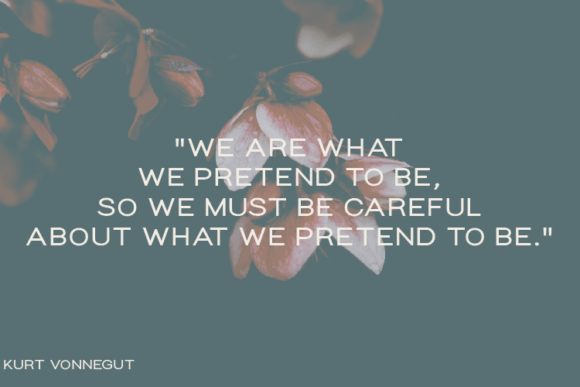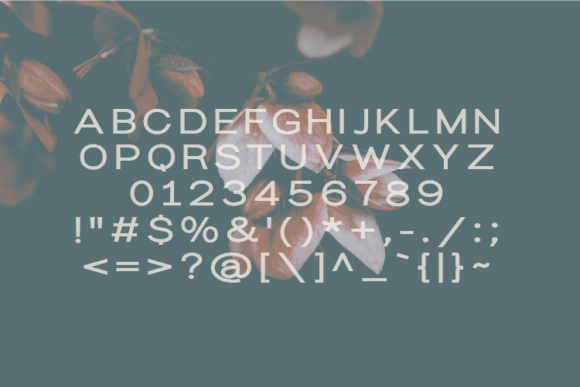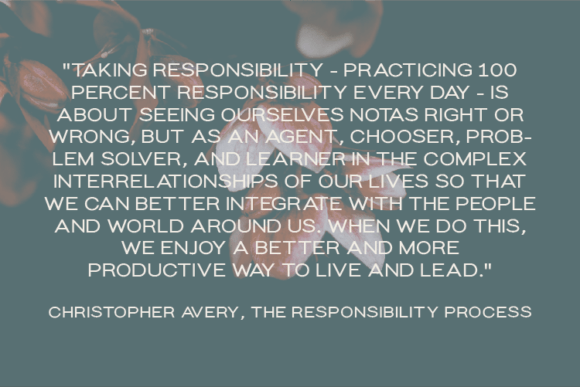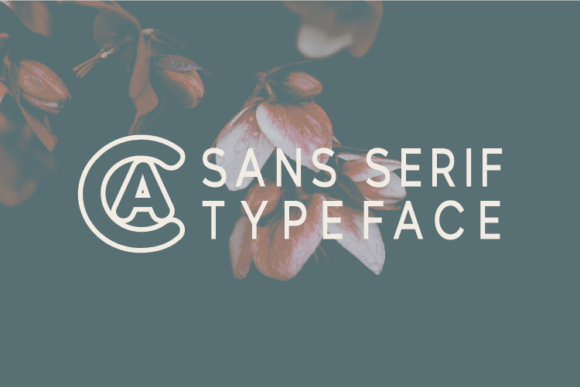
Introducing Curious Font: The Ultimate Modern Sans Serif Typeface
Are you a designer, crafty enthusiast, or simply someone who appreciates beautiful typography? Look no further than Curious Font, a modern, classy sans serif typeface that’s taking the design world by storm. With its sleek lines, elegant curves, and versatility, Curious Font is perfect for a wide range of projects, from logos and weddings to invitations, quotes, advertisements, and more.
What Makes Curious Font So Special?
Curious Font is a carefully crafted typeface that’s designed to make a statement. Its modern sans serif design gives it a fresh and contemporary feel, while its classy lines ensure it remains sophisticated and timeless. Whether you’re looking to create a bold logo, a beautiful wedding invitation, or a striking advertisement, Curious Font is the perfect choice.
Key Features of Curious Font
- Modern Sans Serif Design: Curious Font boasts a sleek, modern design that’s perfect for projects that require a fresh and contemporary feel.
- Extremely Versatile: From logos and branding to weddings, invitations, and more, Curious Font is the ultimate versatile typeface.
- Classy and Elegant: With its smooth lines and elegant curves, Curious Font exudes sophistication and style.
- Perfect for Print and Digital: Whether you’re designing for print or digital, Curious Font performs flawlessly, ensuring your project looks stunning every time.
Use Cases for Curious Font
Curious Font is perfect for a wide range of projects, including:
- Logos and Branding: Create a bold, memorable logo that makes a statement with Curious Font.
- Weddings and Invitations: Add a touch of elegance to your wedding invitations, save-the-dates, and other stationery with Curious Font.
- Advertisements: Grab attention and make an impact with Curious Font’s bold, modern design.
- Quotes and Typography: Showcase your favorite quotes or create stunning typographic art with Curious Font.
- Magazines and Print: Use Curious Font to add a touch of sophistication to your magazine, brochure, or print project.
Why Choose Curious Font?
With so many typefaces to choose from, why should you choose Curious Font? Here are just a few reasons:
- Unique and Memorable: Curious Font is a unique and memorable typeface that will help your project stand out from the crowd.
- High-Quality Design: Curious Font is designed with precision and attention to detail, ensuring it looks stunning every time.
- Easy to Read: Despite its modern design, Curious Font remains easy to read, making it perfect for body text and headlines.
Curious Font is a game-changing typeface that’s perfect for designers, crafty enthusiasts, and anyone who appreciates beautiful typography. With its modern sans serif design, classy lines, and versatility, Curious Font is the ultimate choice for a wide range of projects. Whether you’re looking to create a bold logo, a beautiful wedding invitation, or a striking advertisement, Curious Font is the perfect choice. So why wait? Discover the power of Curious Font today and take your designs to the next level!